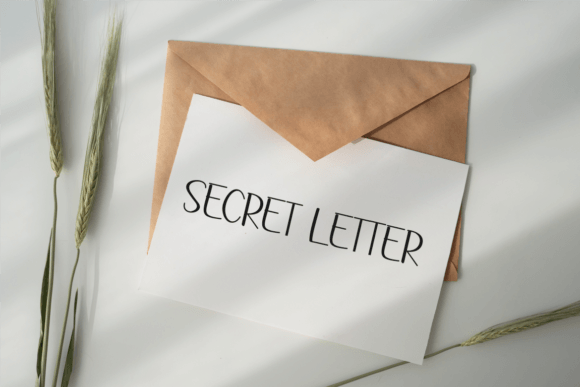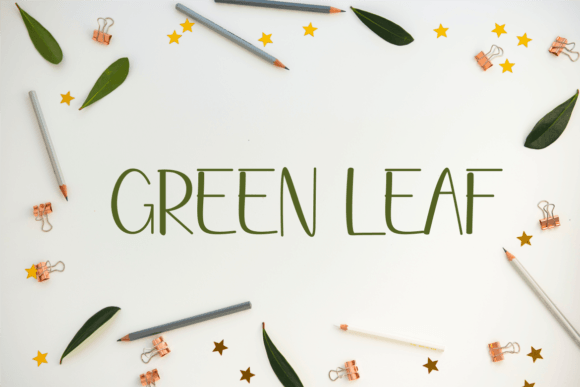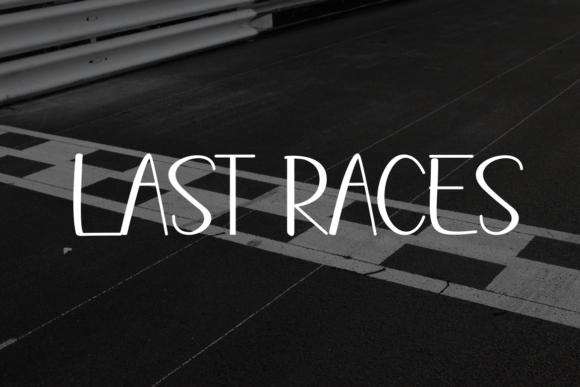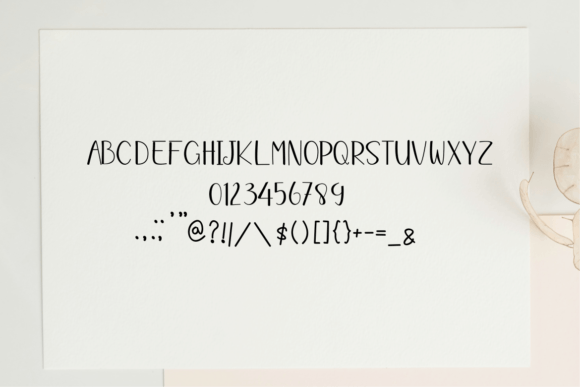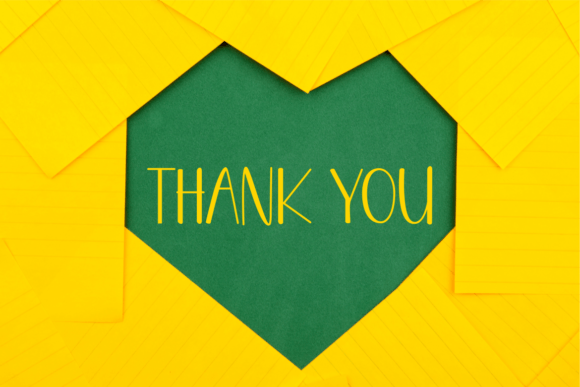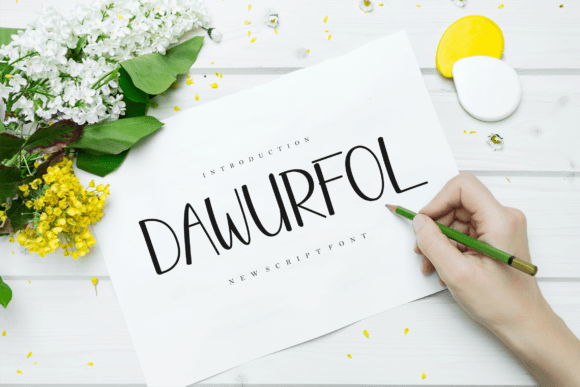
Introducing Dawurfol Font: The Modern Display Font for Bold Designs
In the world of design, fonts play a crucial role in conveying messages, expressing creativity, and building brand identities. For designers and crafters looking for a bold and authentic display font, we are excited to introduce Dawurfol Font. This modern font is designed to make a statement, and its versatility makes it suitable for a wide range of applications, from logo creation and t-shirt printing to esports and more.
What is Dawurfol Font?
Dawurfol Font is a carefully crafted display font that exudes confidence and modernity. Its bold and authentic style is perfect for designers who want to create stunning visual impacts. Whether you’re working on a branding project, designing merchandise, or creating digital content, Dawurfol Font is an excellent choice.
Key Features of Dawurfol Font
• Bold and Authentic Style: Dawurfol Font boasts a bold and authentic style that is sure to grab attention.
• Versatility: This font is suitable for various design projects, including logos, t-shirt printing, esports, and more.
• Modern Design: Dawurfol Font features a modern design that will elevate your designs and give them a fresh look.
• Ease of Use: This font is easy to read and works well in a wide range of contexts.
Use Cases for Dawurfol Font
Dawurfol Font is an incredibly versatile font that can be used in various design projects. Here are some use cases:
• Logo Design: Create a bold and memorable logo for your brand with Dawurfol Font.
• T-Shirt Printing: Design stunning t-shirts with Dawurfol Font that will make a statement.
• Esports: Use Dawurfol Font to create bold and modern designs for esports teams, events, or merchandise.
• Digital Content: Elevate your digital content, such as social media posts, blog headers, and more, with Dawurfol Font.
Why Choose Dawurfol Font?
With so many fonts available, why choose Dawurfol Font? Here are some reasons:
• Unique Style: Dawurfol Font offers a unique and bold style that will set your designs apart.
• High-Quality Design: This font is designed with high-quality and attention to detail, ensuring that your designs look professional.
In conclusion, Dawurfol Font is an excellent choice for designers and crafters looking for a bold and authentic display font. Its versatility, modern design, and ease of use make it suitable for various design projects. With Dawurfol Font, you can create stunning designs that will make a statement and elevate your brand identity.